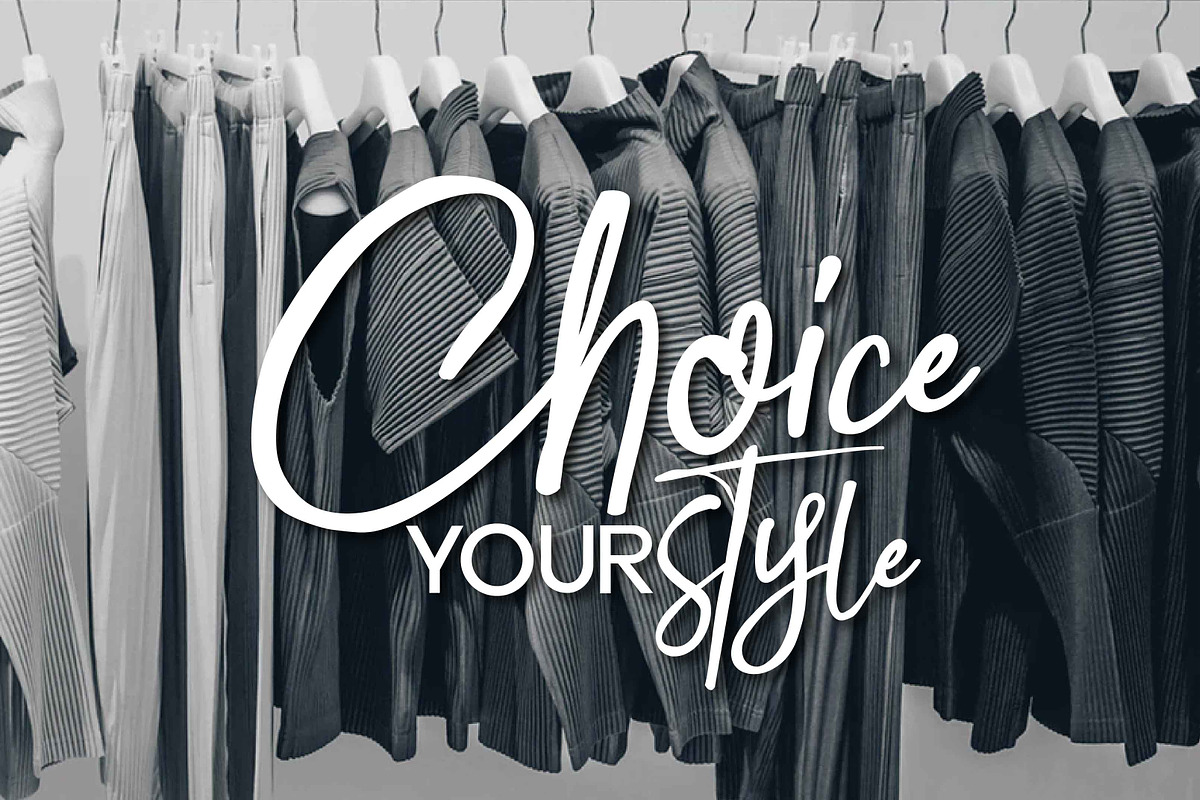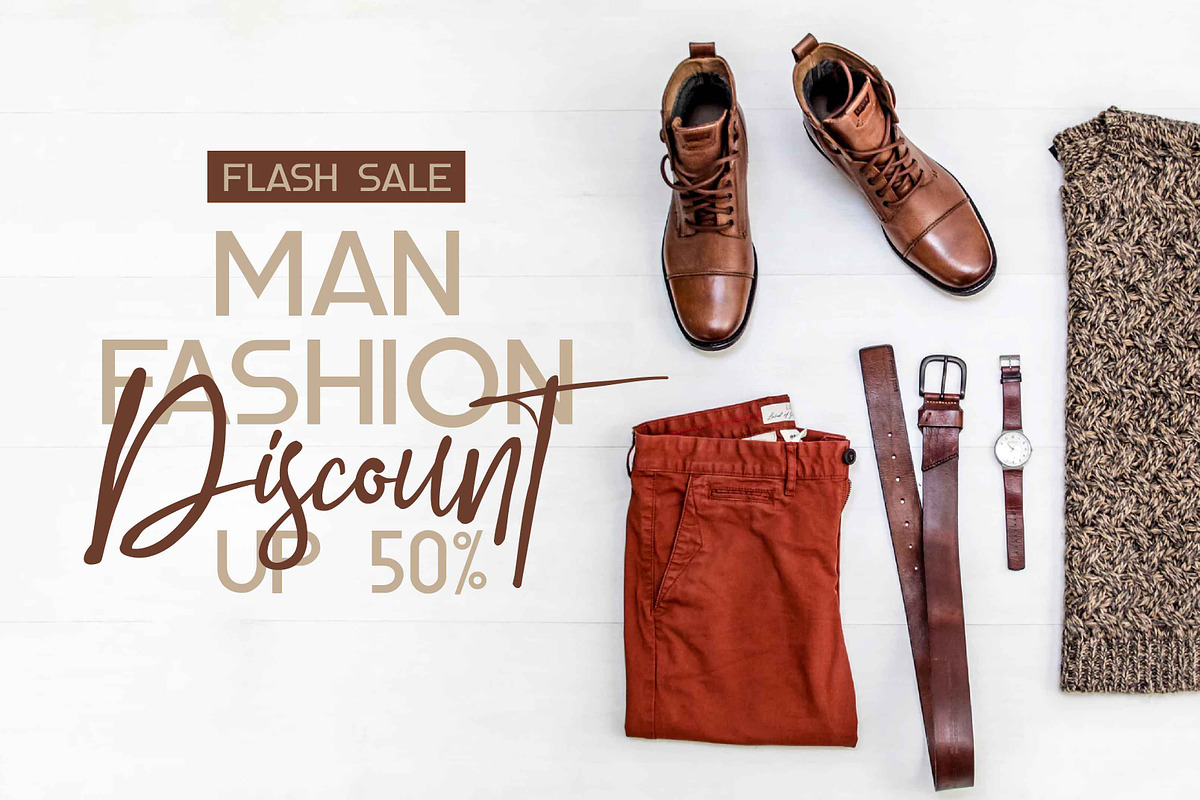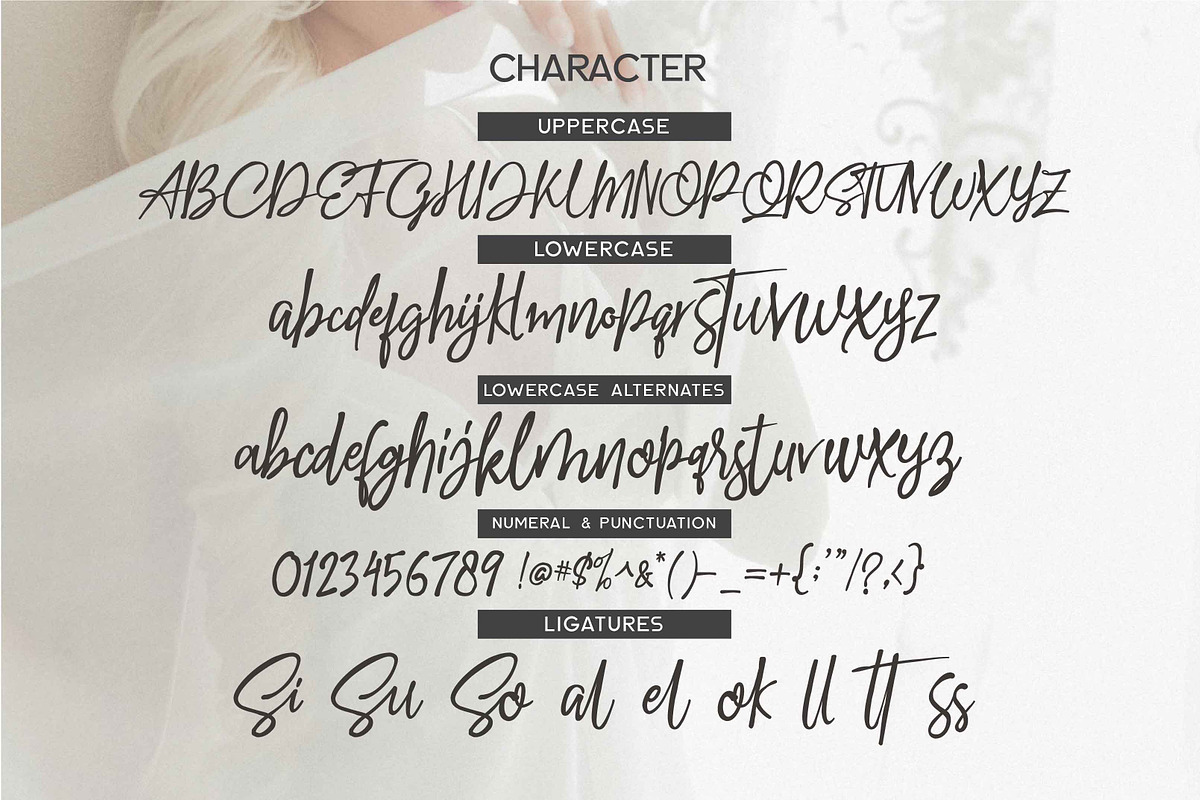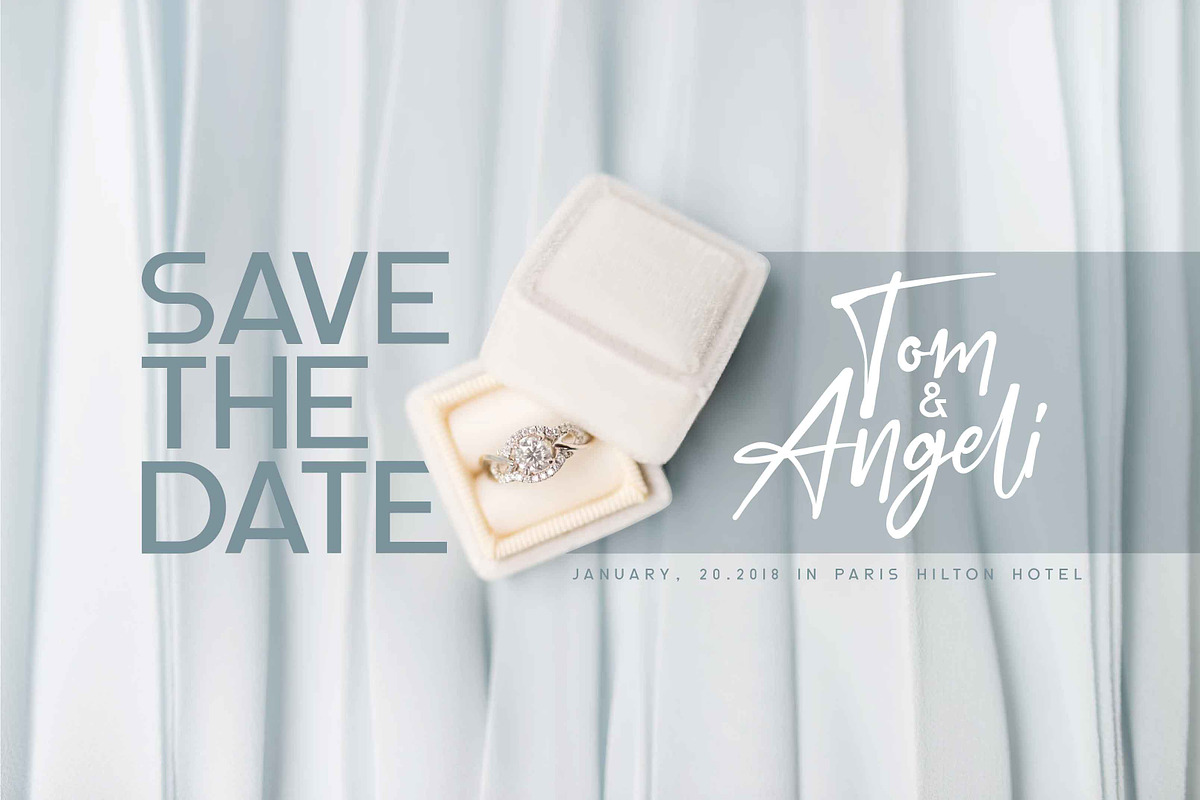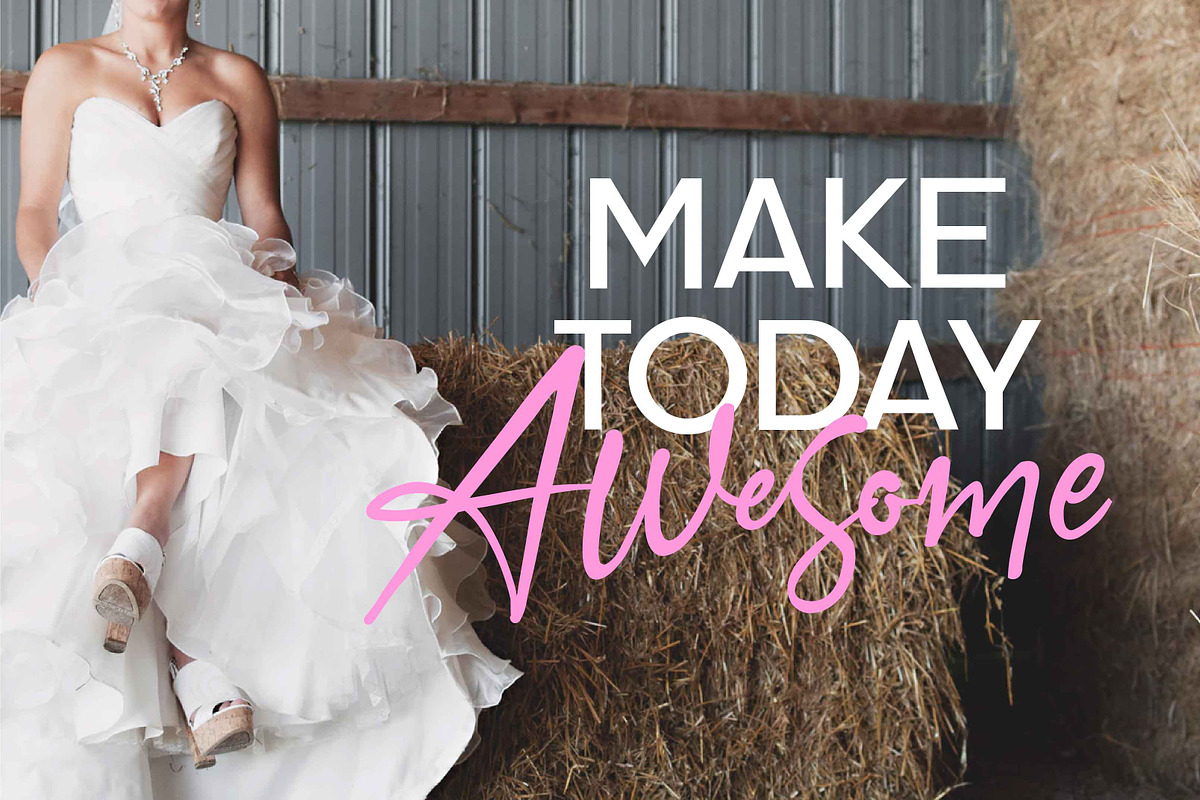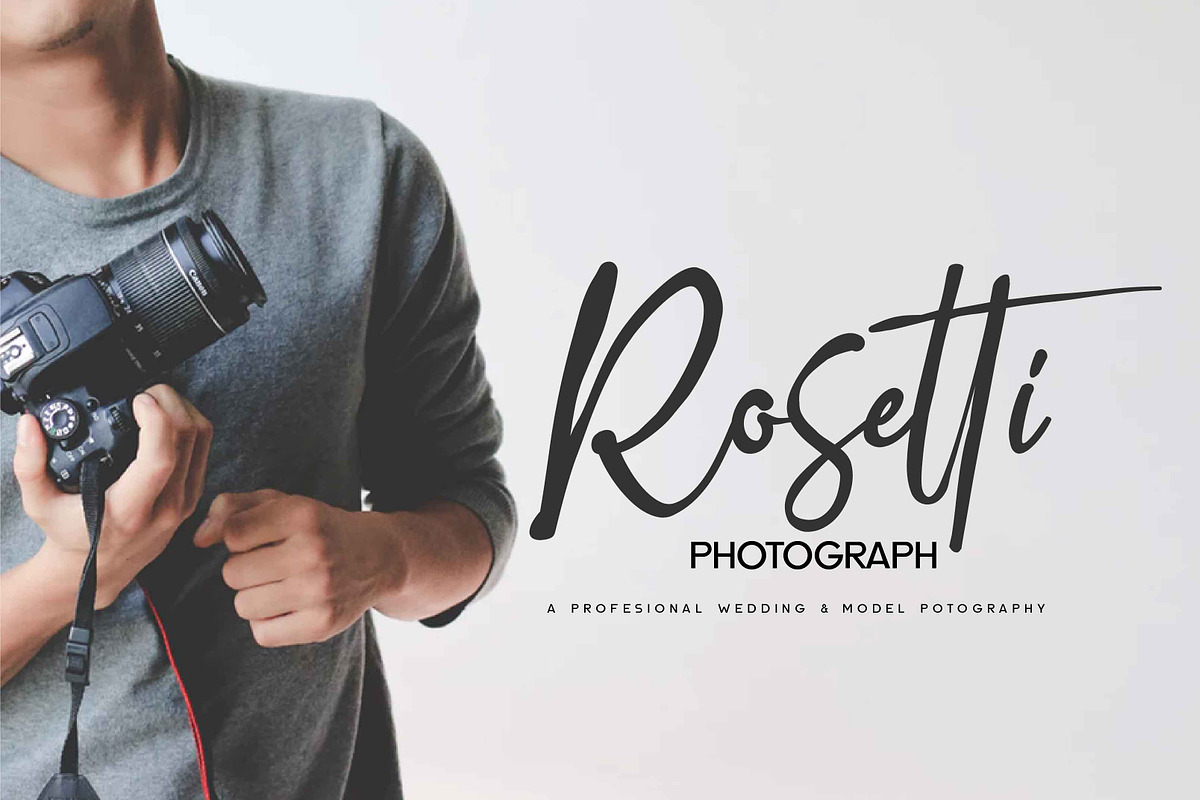
Beatles Culture - Font Duo
BEATLES CULTURE-Font Duo
BEATLES CULTURE-Font Duo is a beautiful Modern handlettering font Typeface with sans serif, This Font will look gorgeous on all your designs, wedding invites, branding materials, logo's, t-shirt, poster, business cards, quotes and all project design other.
BEATLES CULTURE-Font Duo contains standard characters, lowercase, Lowercase Alternates, Uppercase, numbers, punctuation, ligatures and international glyphs.You will receive the 3 font OTF & TTF files.
Beatles Culture - Font Duo by Olexstudio fits naturally into Branding, posters, packaging, typography.